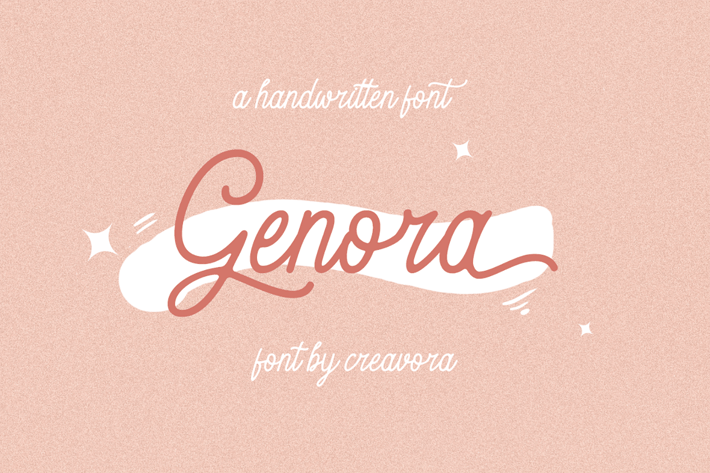
Genora - Beautiful Script Font
Introducing Genora Font
Genora is a beautiful joyful script font, created using direct hand gestures. This font has been carefully designed to recreate natural, handwritten text, and includes special ligatures for free-flowing pen strokes. Genora is perfect for handwritten quotes, tagging, stylish logos, stylish branding projects, and handcrafted product & stationery designs.